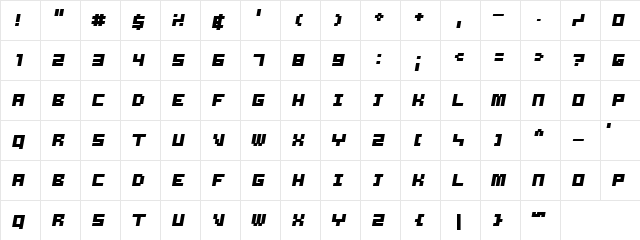
Samson Bold Oblique Regular
Design Context for Samson Bold Oblique
Samson Bold Oblique is a composed and adaptable typeface that performs quietly and consistently across a wide range of design contexts. The slanted form adds forward momentum and visual energy. Its bold stroke weight gives it real presence on the page.